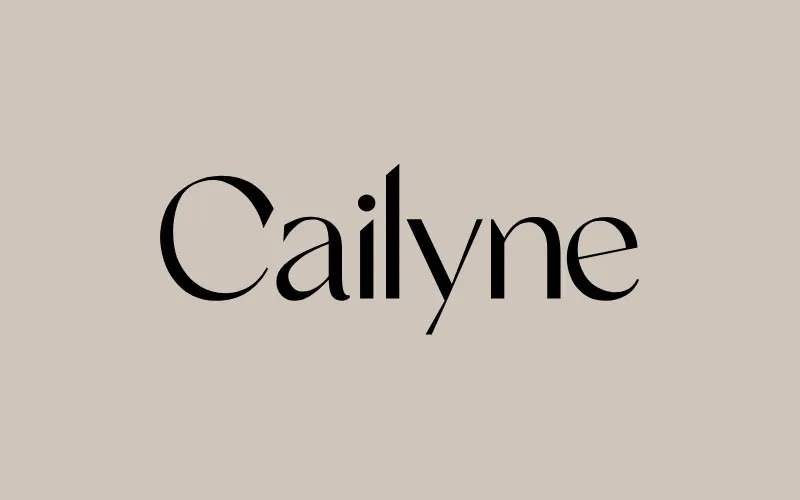
Cailyne Font
Cailyne is a contemporary serif typeface that blends timeless elegance with modern design, available in both regular and italic versions. It’s the ideal font for projects requiring a refined, luxurious touch, from elegant headlines to polished logos. Whether you’re looking to create professional signage or formal invitations, Cailyne offers a sophisticated aesthetic for any design need.
The typeface shines in editorial content, making it perfect for books, magazines, and inside spreads, while also adding class to packaging and fashion branding. Cailyne’s elegant design ensures that your work remains visually engaging while conveying a sense of modern luxury.
For wedding cards, greeting cards, stationery, and novel covers, Cailyne provides a polished and timeless look. Its sophisticated forms are well-suited for high-end designs, making it a versatile font that enhances the elegance of any creative project.